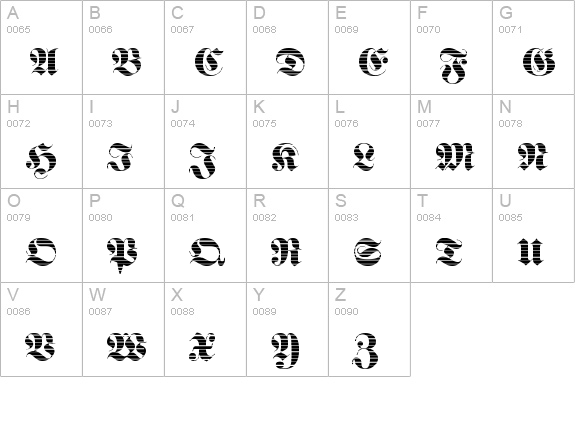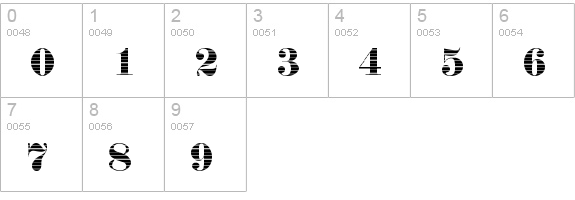
FrakturInkjet2-Regular Font Details
FrakturInkjet2-Regular is the standard, neutral variant in the FrakturInkjet2 typeface family \xE2\x80\x94 well suited to general body text, paragraphs, and standard typographic work.
FrakturInkjet2-Regular is a unique and elegant font that combines the classic beauty of Fraktur typefaces with a modern touch. Its intricate details and sharp edges give it a sophisticated and refined appearance, making it perfect for adding a touch of sophistication to any design project. This font is versatile and can be used for a variety of purposes, from branding and logo design to invitations and posters. Its timeless style makes it ideal for projects that require a touch of elegance and sophistication. FrakturInkjet2-Regular is available for free download at FontsMarket.com, making it accessible to designers and creatives looking to elevate their work with a touch of classic charm. Download this stunning font today and add a touch of timeless elegance to your designs.